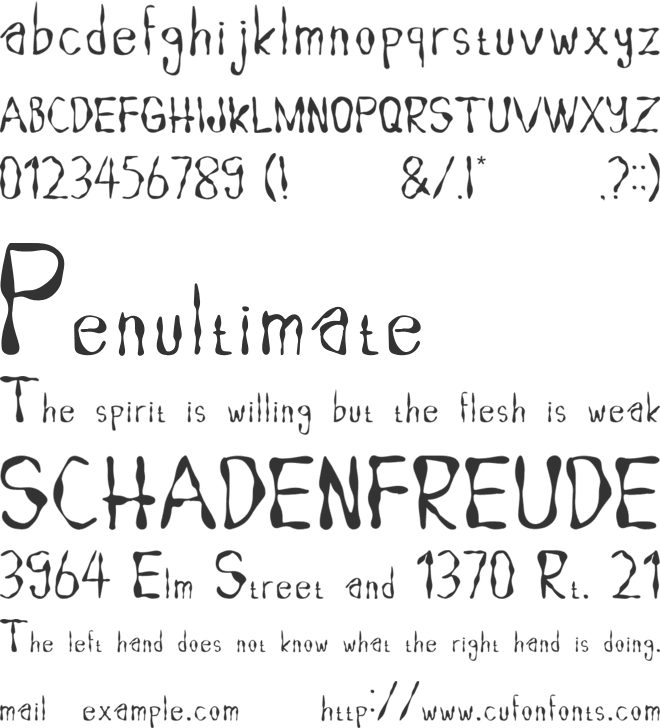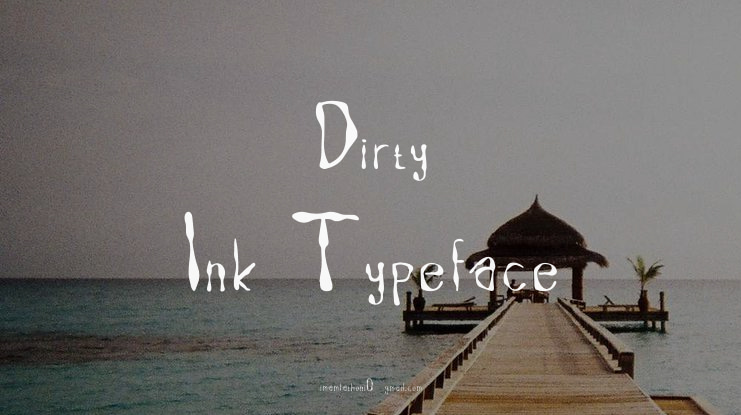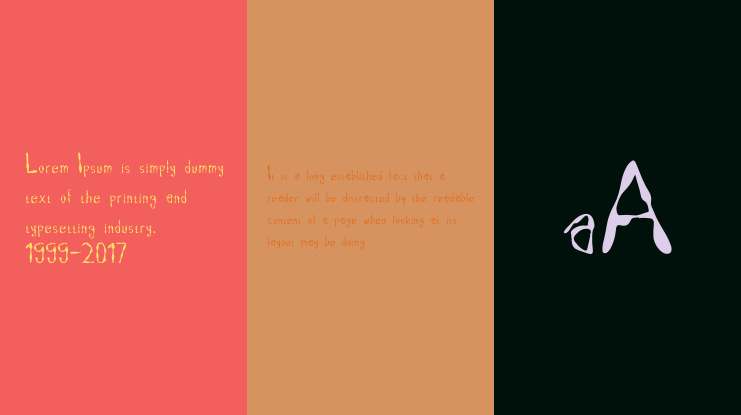
Dirty Ink is a raw handwritten display font with rough, ink-stained strokes and blobby, uneven letterforms. Its messy, drippy texture brings a rebellious, grungy energy to posters, album art, and streetwear designs. The bold, irregular characters feel hand-smeared with attitude.